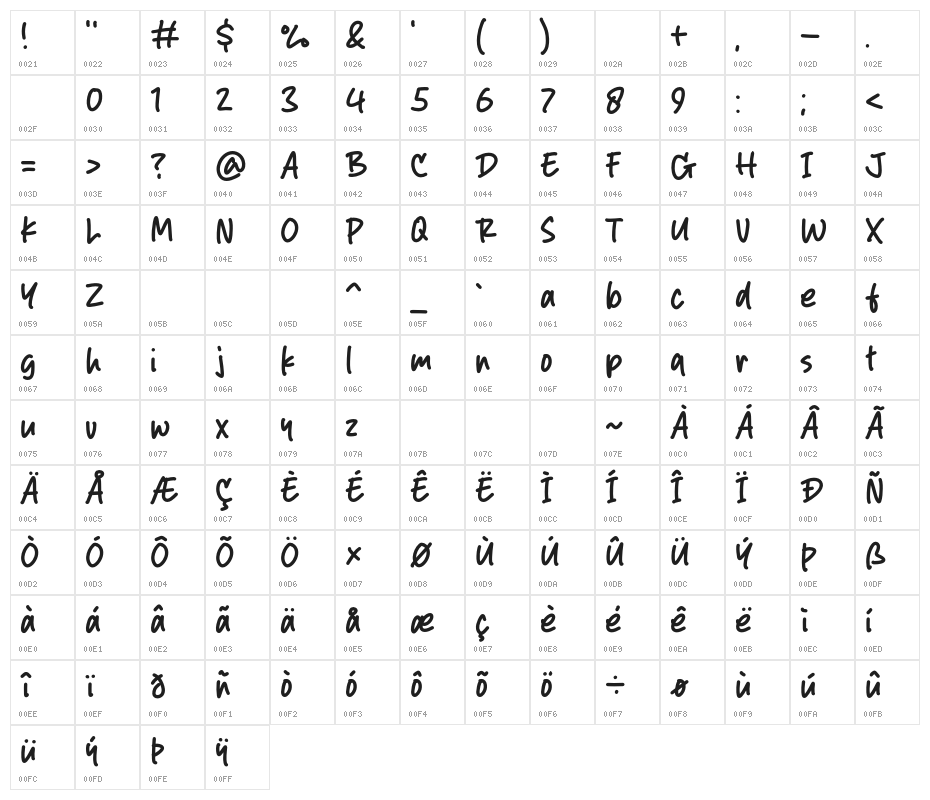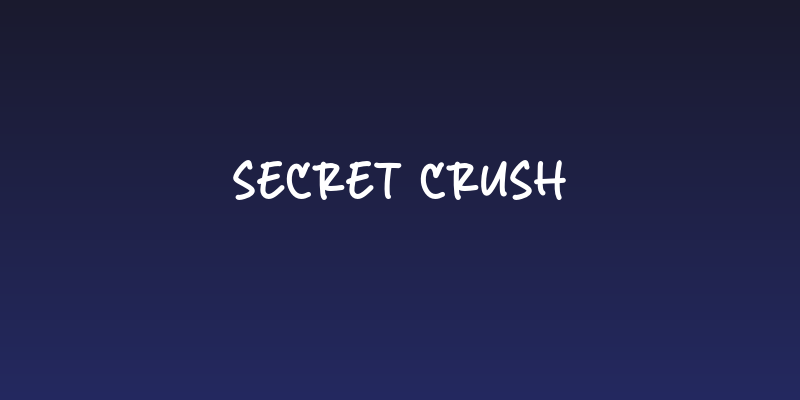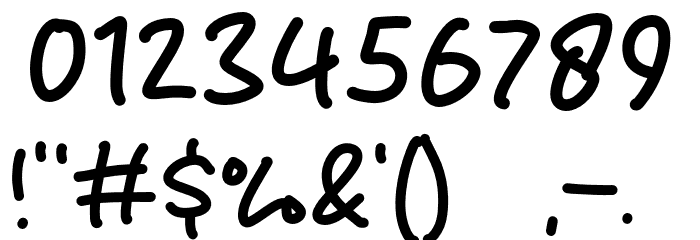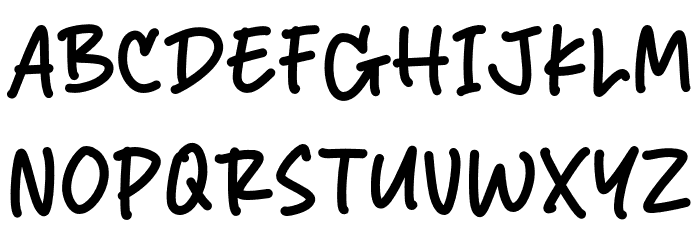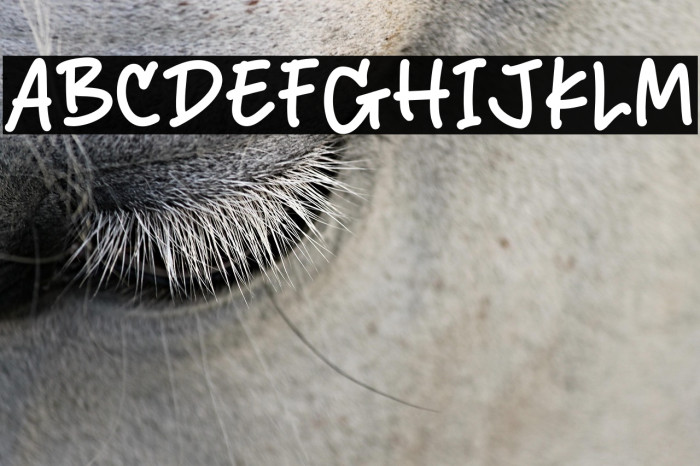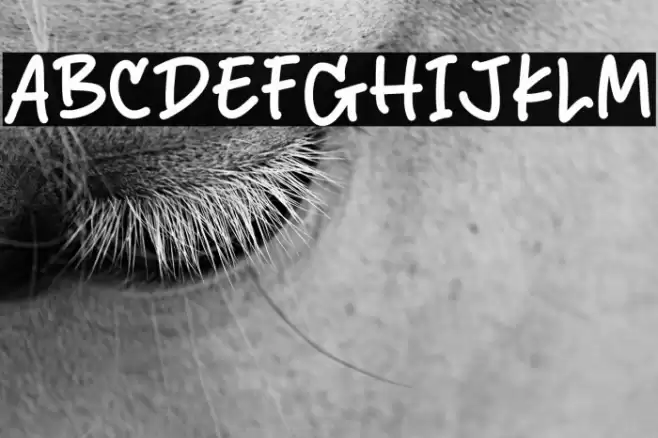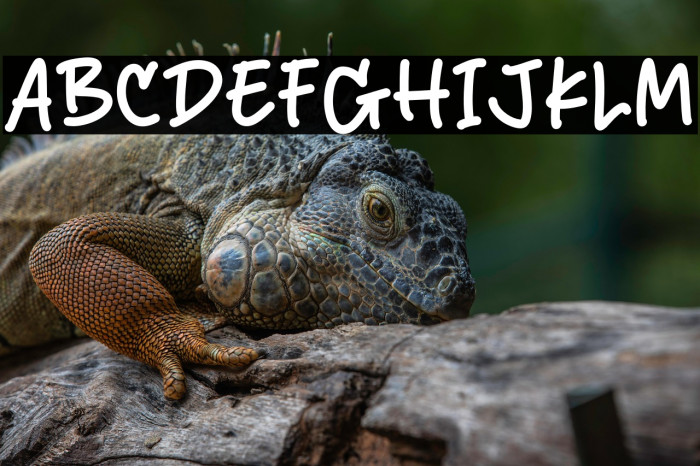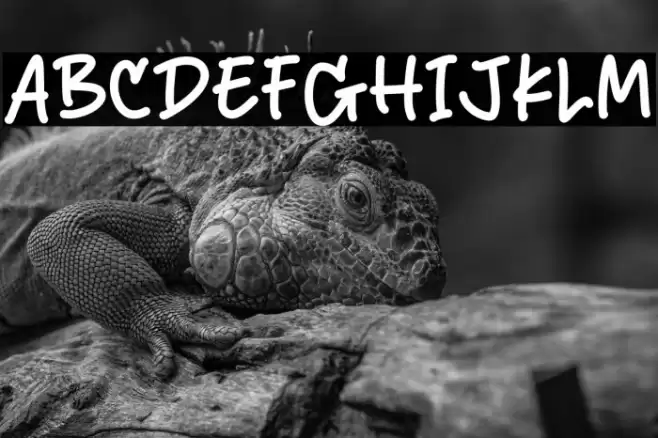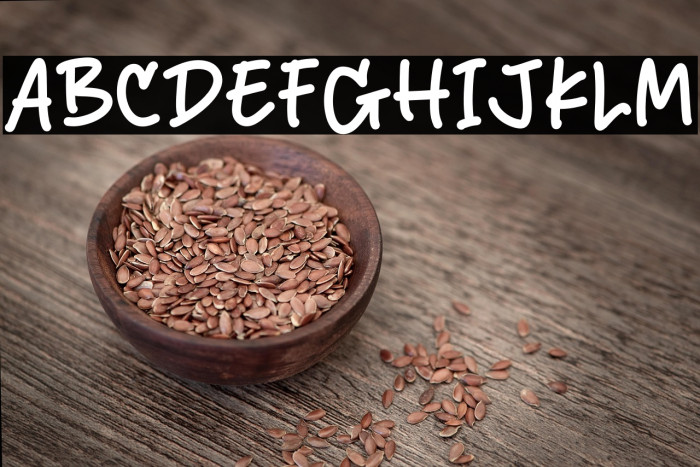
Secret Crush Font
Secret Crush Description
A casual, handwritten script font with a playful and friendly appearance, featuring rounded and slightly irregular characters.
| Overall Style | Casual, Friendly, Handwritten |